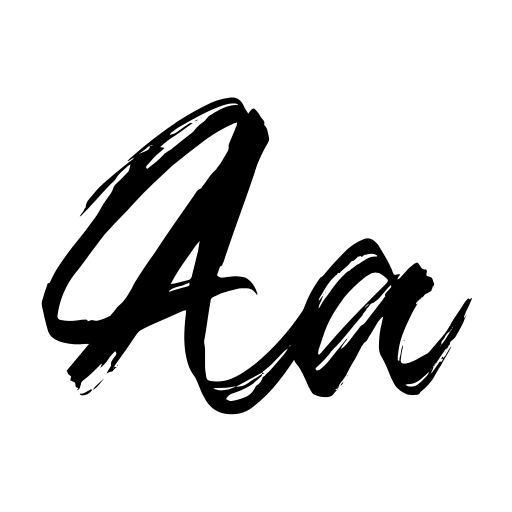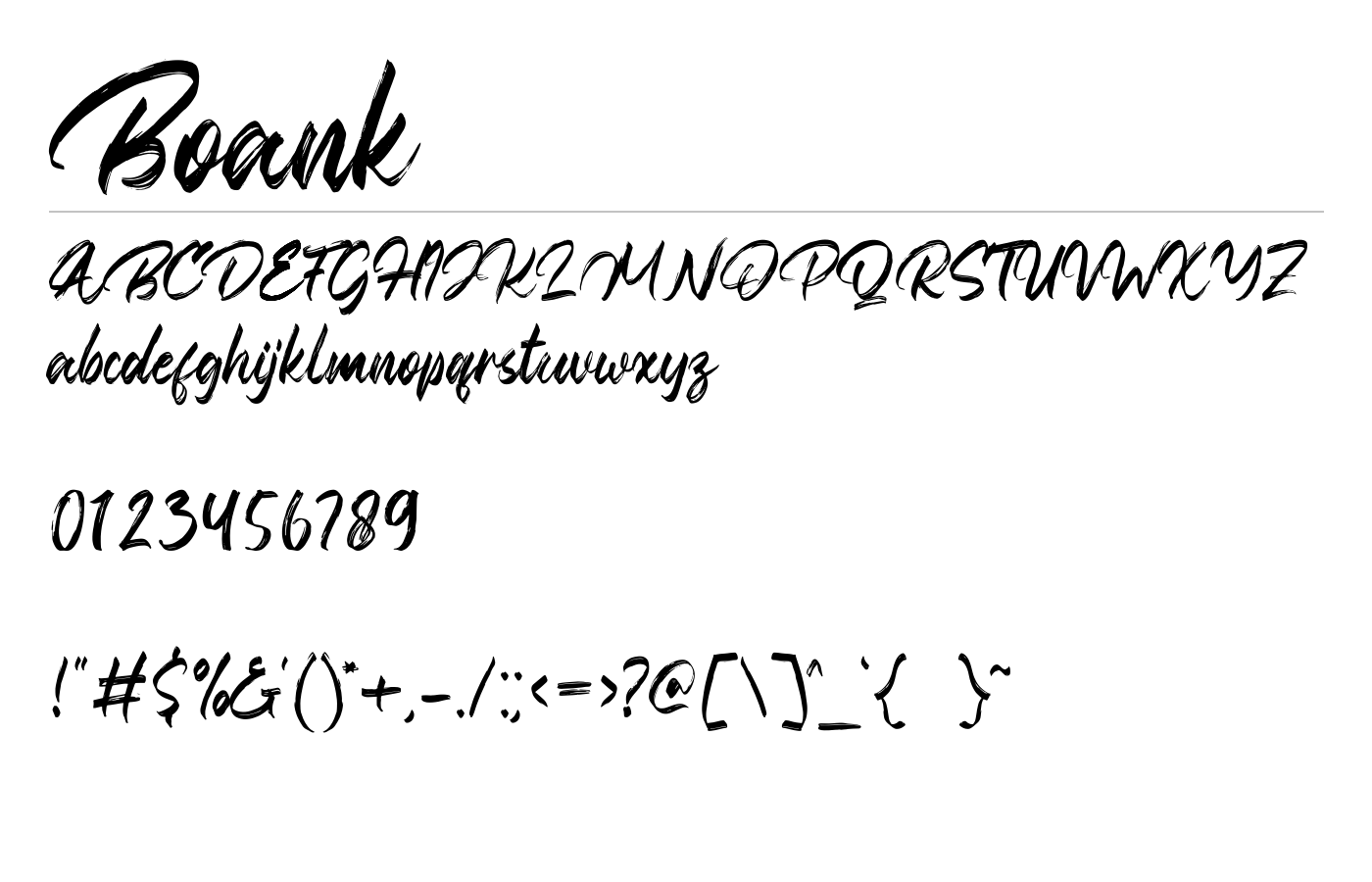
Boank is a lively script font characterized by its bold, brushstroke style that conveys a sense of energy and creativity. With its dynamic, handcrafted appearance and balanced mix of thick and thin lines, it is perfect for artistic branding, invitations, and expressive headlines that need a personal, informal touch. This font works beautifully for projects seeking a modern yet approachable feel with a distinct artistic flair.
Boank Font
About Boank Font
| Font family | Boank Font |
| Designer | Randi Ilhamsyah || Vztype.com |